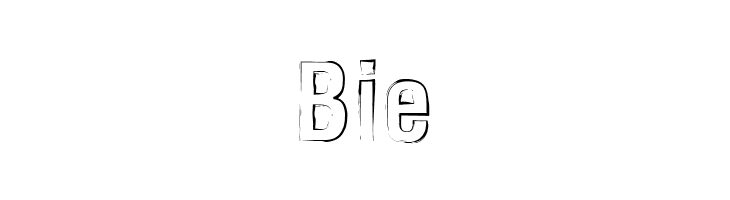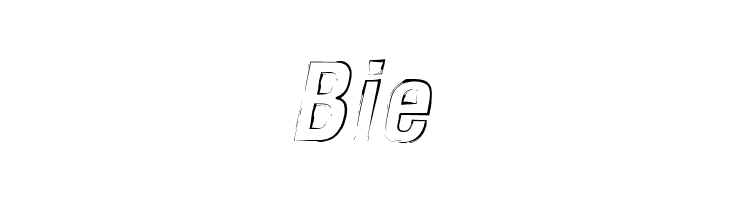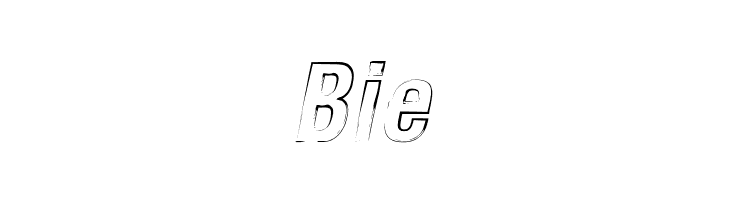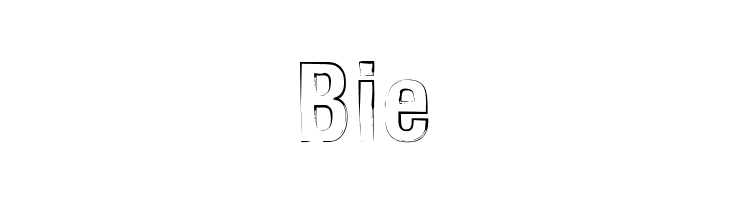
A bold, italic font with a modern, dynamic style and tight character spacing.
A modern, bold outline font with geometric letterforms and consistent spacing.
A modern, clean outline font with bold geometric characters.
A bold, outlined font with a modern and geometric style.
A bold, outlined font with a modern and structured appearance.
A modern, italicized outline font with a sleek and dynamic style.
A modern, italic outline font with a dynamic and stylish appearance.
A modern italic outline font with a sleek and dynamic style.
A modern, italic outline font with a sleek and dynamic style.